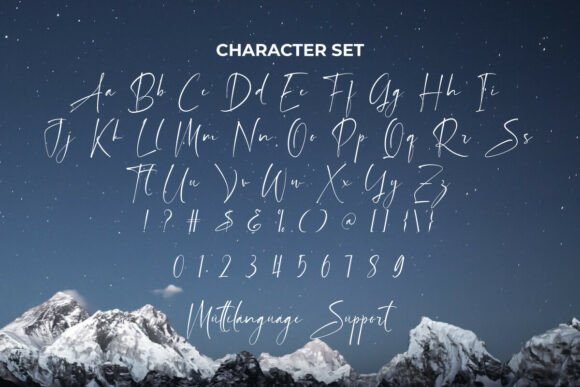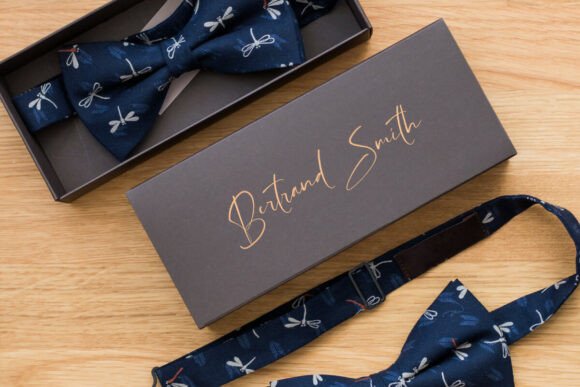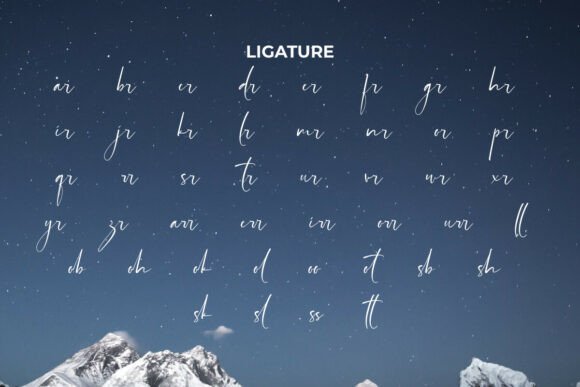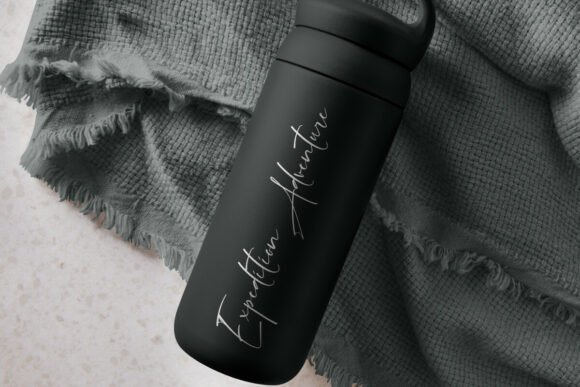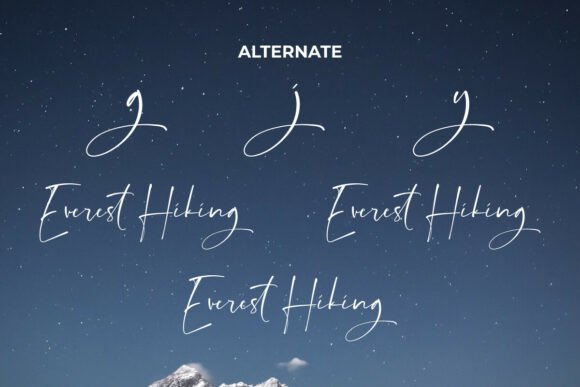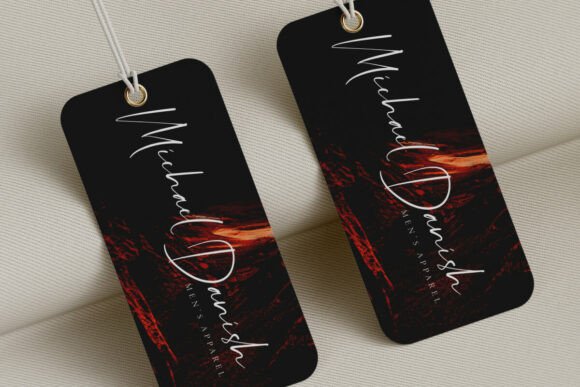
Introducing Everest Hiking Font: Elevate Your Designs with a Touch of Classic Elegance
Are you a designer, crafty enthusiast, or business owner looking for a font that exudes sophistication and style? Look no further than the Everest Hiking Font, a beautiful handwritten calligraphic signature font that brings a classic touch to your designs. With its sleek and neat lines that wave beautifully, this font is not only visually stunning but also easy to read, making it perfect for a wide range of applications.
A Modern Take on Classic Calligraphy
Everest Hiking Font boasts a modern appearance that makes it suitable for various industries, including beauty products, creative designers, event or wedding organizers, fashion, florists, homeware, photography, printing, publishing, restaurants, writers, and more. Its unique blend of classic calligraphy and modern flair ensures that your designs stand out from the crowd while still conveying a sense of timeless elegance.
Key Features of Everest Hiking Font
- Handwritten Calligraphic Style: Everest Hiking Font features a beautiful, handwritten calligraphic style that adds a personal touch to your designs.
- Classic yet Modern: This font combines classic elements with a modern twist, making it versatile and suitable for various industries and applications.
- Sleek and Neat Lines: The font’s sleek and neat lines wave beautifully, creating a visually appealing effect that’s easy on the eyes.
- Easy to Read: Despite its elegant style, Everest Hiking Font remains easy to read, even in small letters, ensuring that your message is conveyed clearly.
Use Cases for Everest Hiking Font
The versatility of Everest Hiking Font makes it an excellent choice for a wide range of design projects, including:
- Wedding and Event Invitations: Add a touch of elegance to your wedding or event invitations, making them truly unforgettable.
- Social Media Graphics: Elevate your social media presence with eye-catching graphics that feature the Everest Hiking Font.
- Packaging and Label Design: Make your products stand out on store shelves with beautifully designed packaging and labels.
- Advertising and Marketing Materials: Use Everest Hiking Font to create stunning ads, brochures, and other marketing materials that capture your audience’s attention.
Why Choose Everest Hiking Font?
With so many fonts available, why choose Everest Hiking Font? Here are just a few reasons:
- Unique Style: Everest Hiking Font offers a distinctive style that sets it apart from more traditional fonts.
- High Versatility: This font can be used across various industries and applications, making it a valuable addition to your design toolkit.
Everest Hiking Font is a beautiful, handwritten calligraphic signature font that brings a touch of classic elegance to your designs. With its modern appearance, sleek lines, and ease of readability, this font is perfect for designers, crafty enthusiasts, and business owners looking to elevate their brand and create stunning visual content. Whether you’re working on a logo, invitation, social media graphic, or packaging design, Everest Hiking Font is an excellent choice that will help you stand out from the crowd.